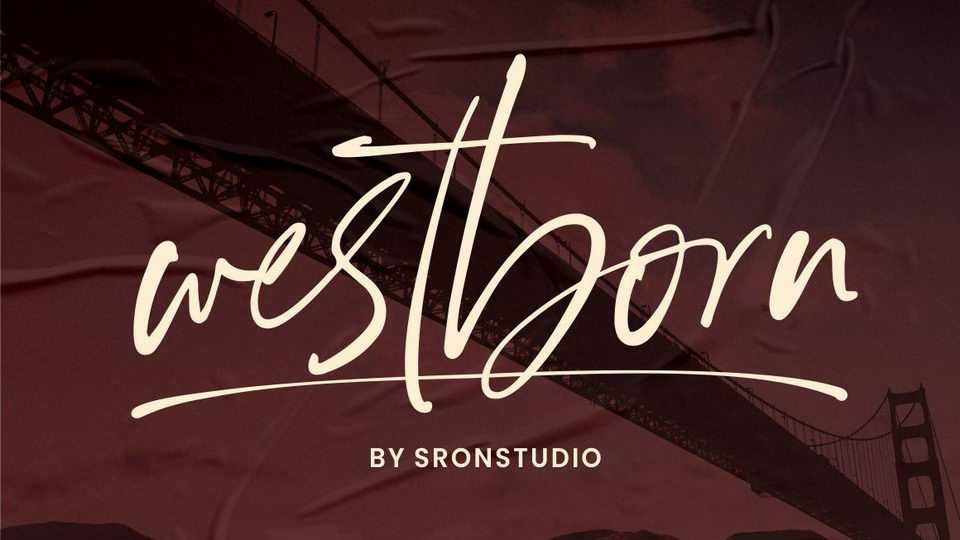
Download Westborn font, a stylish signature script that is perfect for branding, invitation, stationery, wedding designs, social media posts, advertisements, label, photography, watermark, special events or anything.
Designer: Sronstudio